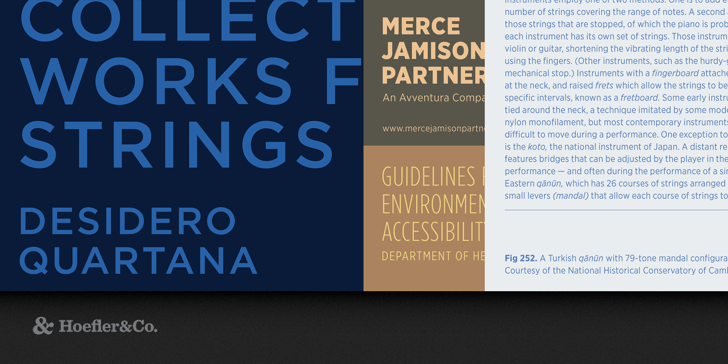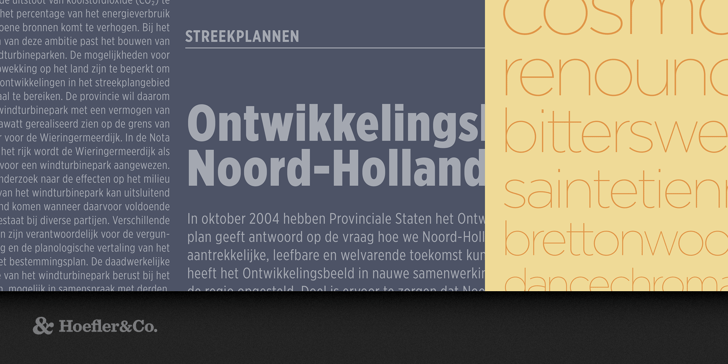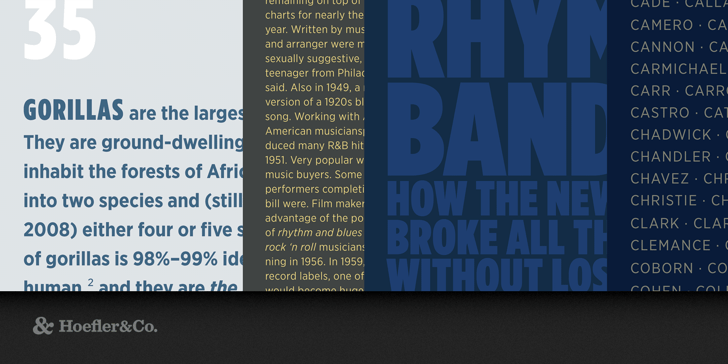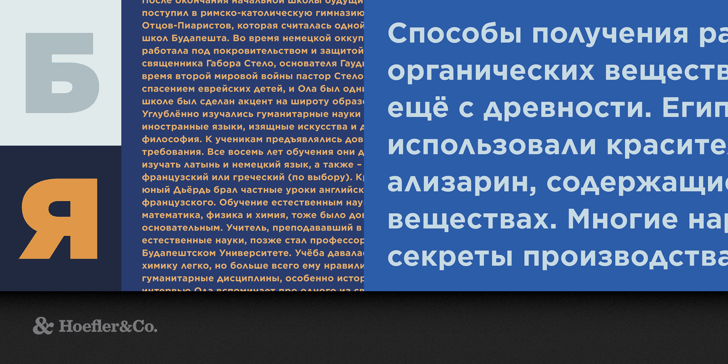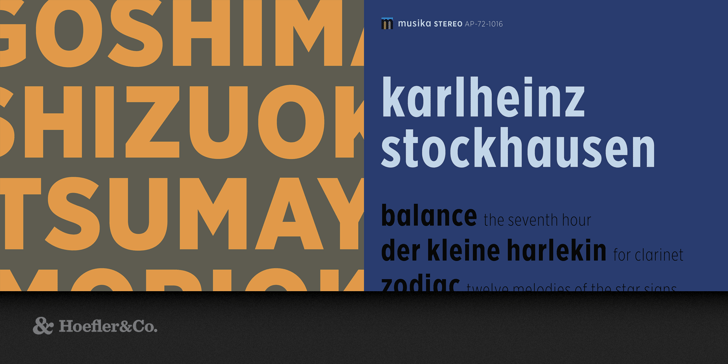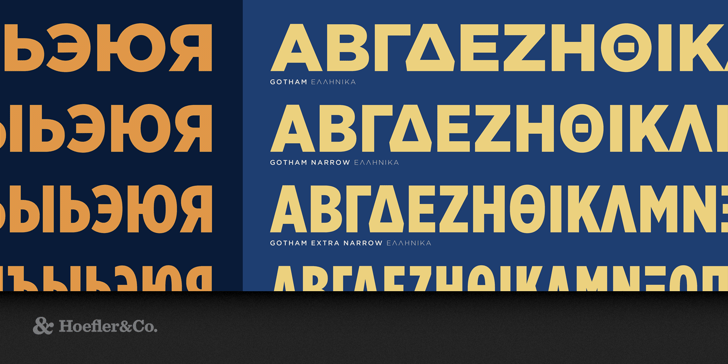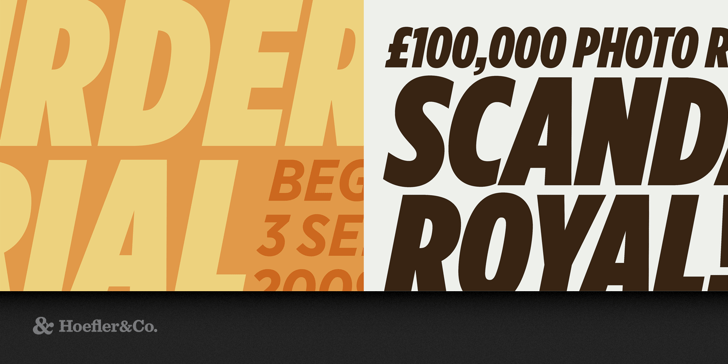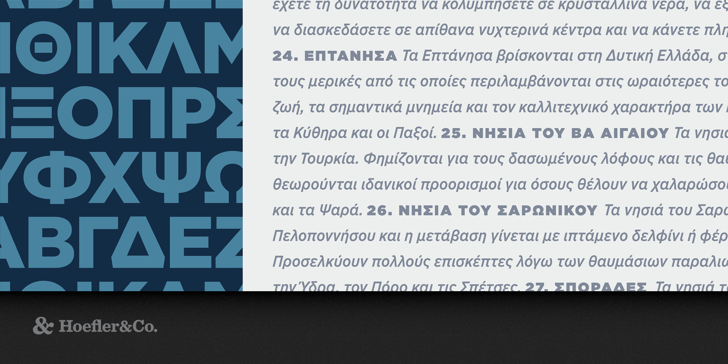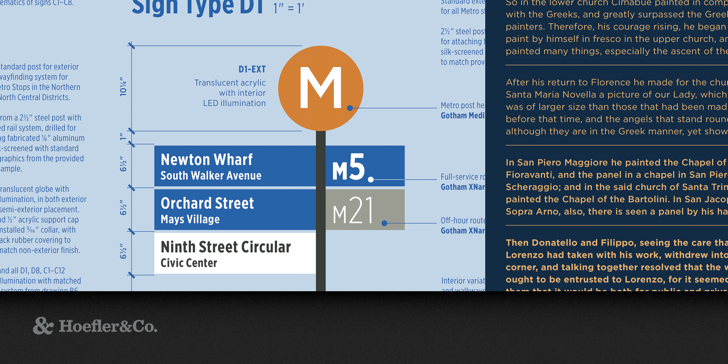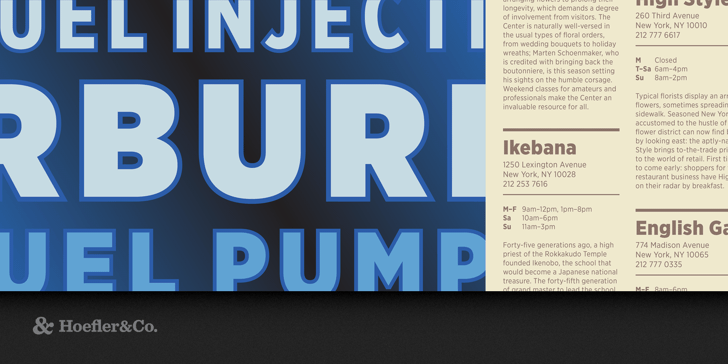
The Gotham® Font Family was designed by Jonathan Hoefler and Tobias Frere-Jones and published by Hoefler & Co.. Gotham contains 9 family package options.
Every designer has admired the no-nonsense lettering of the American vernacular, those letters of paint, plaster, neon, glass and steel that figure so prominently in the urban landscape. From these humble beginnings came Gotham, a hard-working typeface for the ages.
The Gotham typeface was designed by Jonathan Hoefler and Tobias Frere-Jones in 2000. A sans serif that shares many attributes of typography’s ‘geometric’ genus, Gotham was inspired by a style of bold capital letters that evolved outside the typographic tradition in the early twentieth century, common to lithographed posters, enamel signs, and commercial facades throughout New York City. First appearing in the pages of GQ magazine in 2001, Gotham gained international attention in 2007 when it was adopted by the presidential campaign of Barack Obama. One of the most popular and influential typefaces of our time, Gotham is in the permanent collection of the Museum of Modern Art in New York.
From the desk of the designer:
Gotham celebrates the attractive and unassuming lettering of the city. New York is teeming with such letters, handmade sans serifs that share a common underlying structure, an engineer’s idea of “basic lettering” that transcends both the characteristics of their materials and the mannerisms of their makers. These are the cast bronze numbers that give office doorways their authority, and the markings on cornerstones whose neutral and equable style defies the passage of time. They’re the matter-of-fact neon signs that emblazon liquor stores and pharmacies, and the names of proprietors plainly painted on delivery trucks. These letters are straightforward and non-negotiable, yet possessed of great personality, and often expertly made. And although designers have lived with them for more than half a century, they remarkably went unrevived until 2000, when we introduced Gotham.
Gotham is that rarest of designs, the new typeface that feels somehow familiar. From the lettering that inspired it, Gotham inherited an honest tone that’s assertive but never imposing, friendly but never folksy, confident but never aloof. The inclusion of so many original ingredients without historical precedent — a lowercase, italics, a comprehensive range of weights and widths, and a character set that transcends the Latin alphabet — enhances these forms’ plainspokenness with a welcome sophistication, and brings a broad range of expressive voices to the Gotham family.
Four Widths
Designers asked if Gotham could take on new typographic roles, and we listened. Gotham Narrow reimagines Gotham as a space-efficient text face, handily succeeding in the confines of the narrow text column without looking squeezed. With the silhouette of a classic headline series, Gotham Extra Narrow is a practical choice for sizes both large and small, with an ample character set that recommends it to information-dense environments. Gotham Condensed features nine weights from Thin to Ultra, including a number of features unusual in condensed fonts, starting with matching italics in every weight.